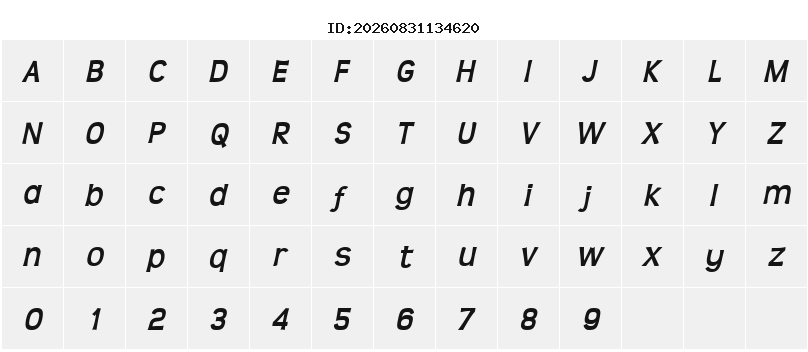
• Font Name: Teen
• Font ID: MartinArcher/RayLarabie: Teen Bold Italic: 2000
• Full Font Name: Teen Bold Italic
• Designer: Ray Larabie & Martin Archer
• Description: Original Design by Martin Archer. Final touches, numerals, accents, punctuation by Ray Larabie
About Teen.ttf
Teen.ttf is a modern, elegant sans-serif font designed for ultimate readability and visual harmony. Perfect for branding, headlines, web design, and print materials.